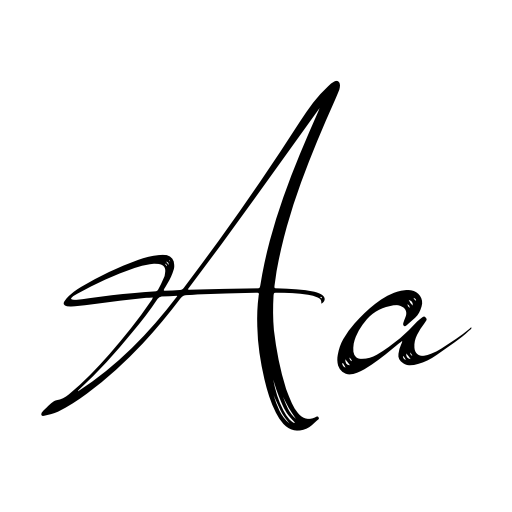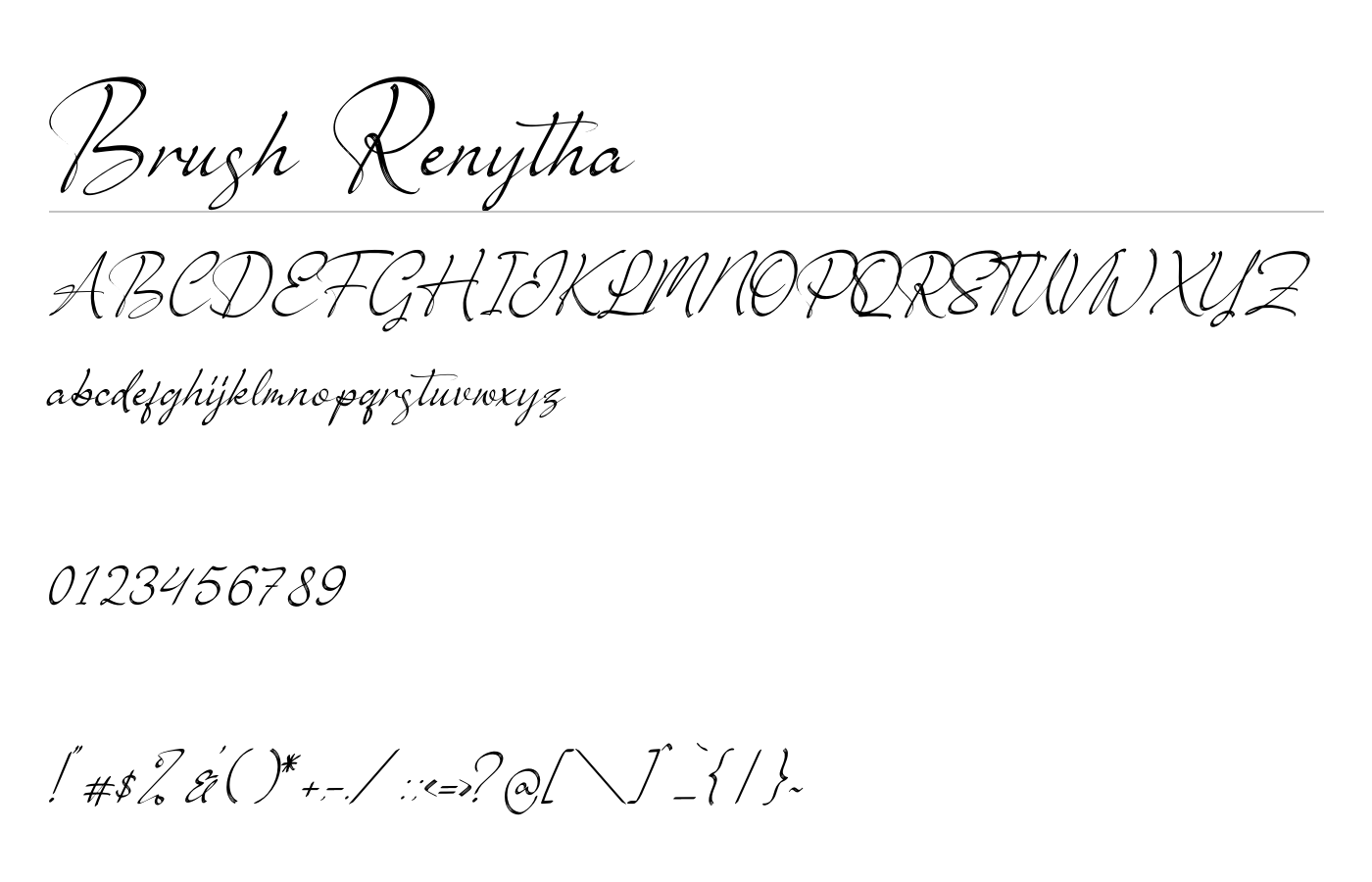
Brush Renytha is a graceful script font with elegant, flowing strokes that mimic stylish brush calligraphy. Its slender, slightly varied line weights and delicate curves create a sophisticated, artistic feel, perfect for invitations, branding, and creative projects seeking a refined, personal touch. This font shines in applications where a luxurious, handcrafted aesthetic is desired.
| Font family | Brush Renytha Font |
| Designer | Nanang Jamaludin |